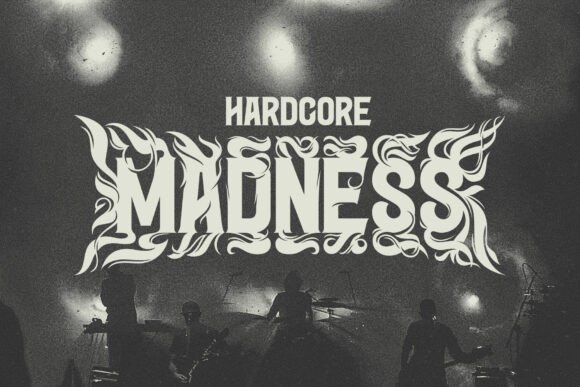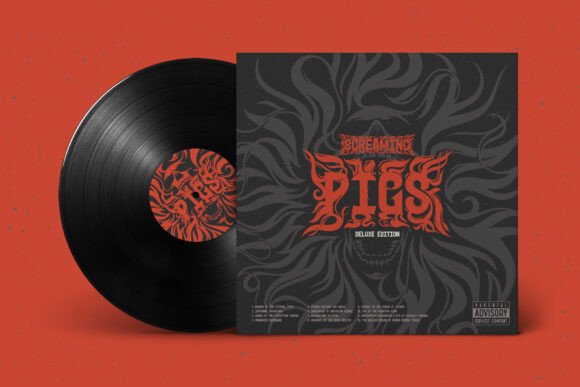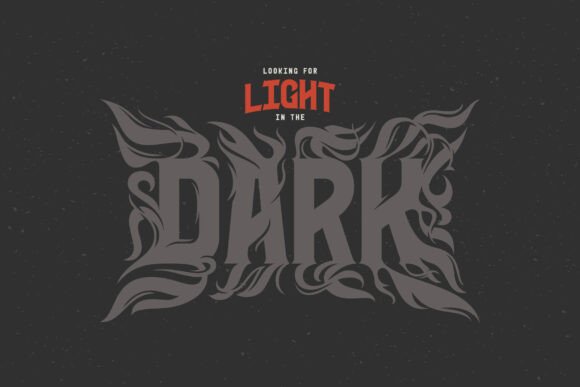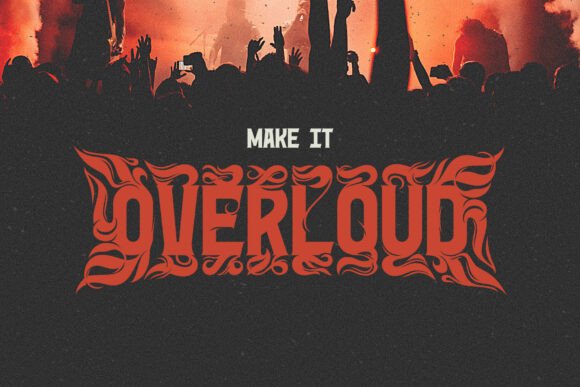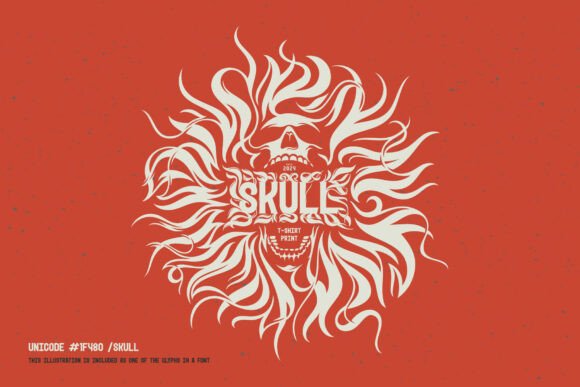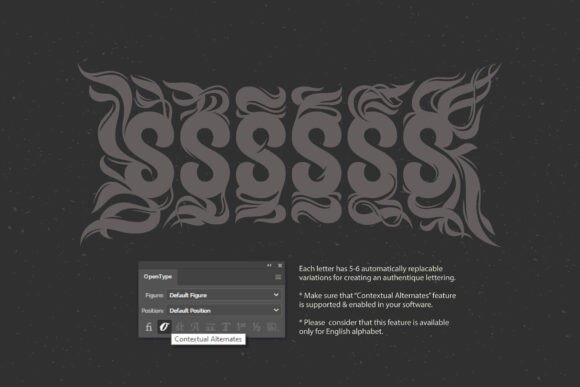
Unleash Your Creativity with Hairy Metal Font: A Decorative Masterpiece
Are you tired of using the same old fonts in your designs? Look no further! We’re excited to introduce Hairy Metal, an originally designed decorative font that’s sure to take your creative projects to the next level. This aggressive typeface features abstract, spreading lines that resemble tousled strands of hair, adding a unique touch to any design.
What Makes Hairy Metal Font So Special?
Hairy Metal font is not your average font. Each letter has been carefully crafted with 5-6 variations that switch automatically to create a seamless effect. This means that you’ll get a unique and dynamic look every time you use it. The font’s abstract lines are designed to resemble tousled strands of hair, giving it a bold and edgy feel that’s perfect for making a statement.
Key Features of Hairy Metal Font
- Originally Designed: Hairy Metal font is a one-of-a-kind decorative font that’s sure to stand out in any design.
- Abstract Lines: The font features abstract, spreading lines that resemble tousled strands of hair, adding a unique touch to any design.
- Automatic Variations: Each letter has 5-6 variations that switch automatically to create a seamless effect.
- Simplified Base Font: A simplified base font without special effects is also included, perfect for typing supporting text.
- Multi-Language Support: Hairy Metal font supports most European languages.
Hairy Metal font is perfect for designers and crafters who want to add a unique touch to their projects. Whether you’re working on a logo, brochure, or website, this font is sure to make a statement. Its bold and edgy feel makes it perfect for designs that require a bit of attitude.
English Alphabet Support
Please note that the special 5-letter feature is available only for the English alphabet. However, the font supports most European languages, making it a great choice for designers who work with international clients.
- Experiment with Different Sizes: Hairy Metal font looks great in large sizes, but it can also be used in smaller sizes to add a touch of personality to your design.
- Pair it with Other Fonts: Try pairing Hairy Metal font with a simpler font to create a striking contrast.
- Use it for Headlines: Hairy Metal font is perfect for headlines and titles, but it can also be used for body text to add a bit of flair.
| Font Name | Hairy Metal Font |
| Author | Gleb Guralnyk |
In conclusion, Hairy Metal font is a decorative masterpiece that’s sure to take your creative projects to the next level. Its unique and dynamic design makes it perfect for designers and crafters who want to add a bit of attitude to their work. With its automatic variations, simplified base font, and multi-language support, Hairy Metal font is a must-have for any designer looking to unleash their creativity.